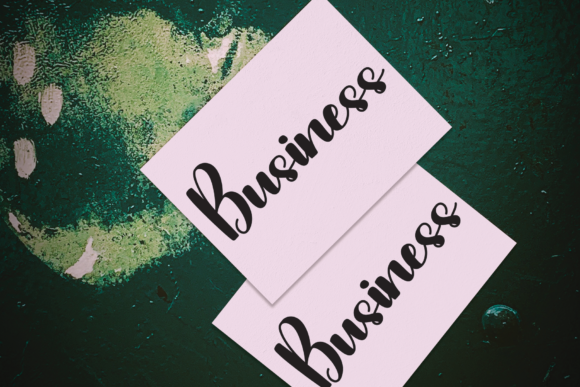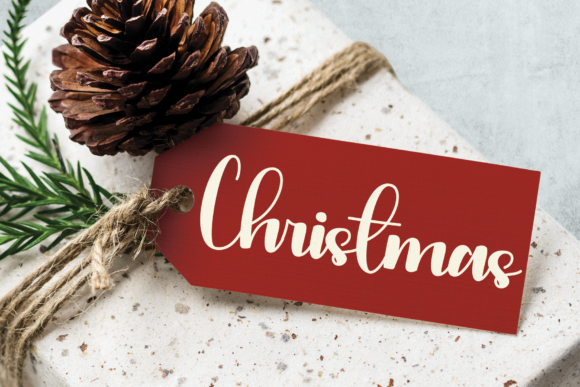
About Almond Font
The captivating and flowing handwritten font you’ve described is a design marvel, tailored to bring a touch of beauty and elegance to an extensive array of creative projects. Its graceful script is well-suited for a diverse range of applications, adding sophistication to each project. Here’s an extended version:
**Wall Hangings:** Transform your living or workspaces into personalized art galleries with enchanting wall hangings. The beautiful script of this font adds a unique and artistic flair, turning your walls into a canvas of visual delight.
**Wedding Invitations:** Infuse your wedding invitations with a sense of romance and timeless beauty. The flowing script sets the perfect tone for a celebration of love, ensuring each invitation becomes a cherished memento.
**Social Media Post Logos:** Craft distinctive and memorable logos for your social media presence. The beauty and flow of this font bring authenticity and elegance to your brand identity, making your posts stand out with sophistication.
**Advertising:** Elevate your advertising materials with typography that leaves a lasting impression. The impressive and flowing characters of this font add refinement and charm to your promotional campaigns, creating visually striking and memorable content.
**Product Packaging and Design:** Infuse a touch of luxury and style into your products with packaging that captivates. Whether on labels or overall product design, this font enhances the visual appeal, ensuring your products make a lasting impression on the shelves.
**Labels:** Create labels that not only convey information but also make a visual statement. The beautiful script adds an artistic touch, ensuring your products are noticed and remembered for their aesthetic allure.
**Photography:** Enhance your photographic work with a watermark that complements your artistic vision. The flowing script becomes a distinctive signature, turning each photograph into a captivating piece of visual storytelling.
**Invitations and Stationery:** Whether for formal events or everyday correspondence, this font elevates invitations and stationery to a new level of elegance. Each piece becomes a testament to timeless sophistication, leaving recipients with a lasting impression.
In essence, this beautiful and flowing handwritten font is a design powerhouse, capable of enhancing the visual appeal of wall hangings, wedding invitations, social media logos, advertising materials, product packaging, labels, photography, watermarks, invitations, stationery, and any project that requires impressive typography. Its versatility and timeless elegance make it an invaluable asset for creative projects across various mediums.